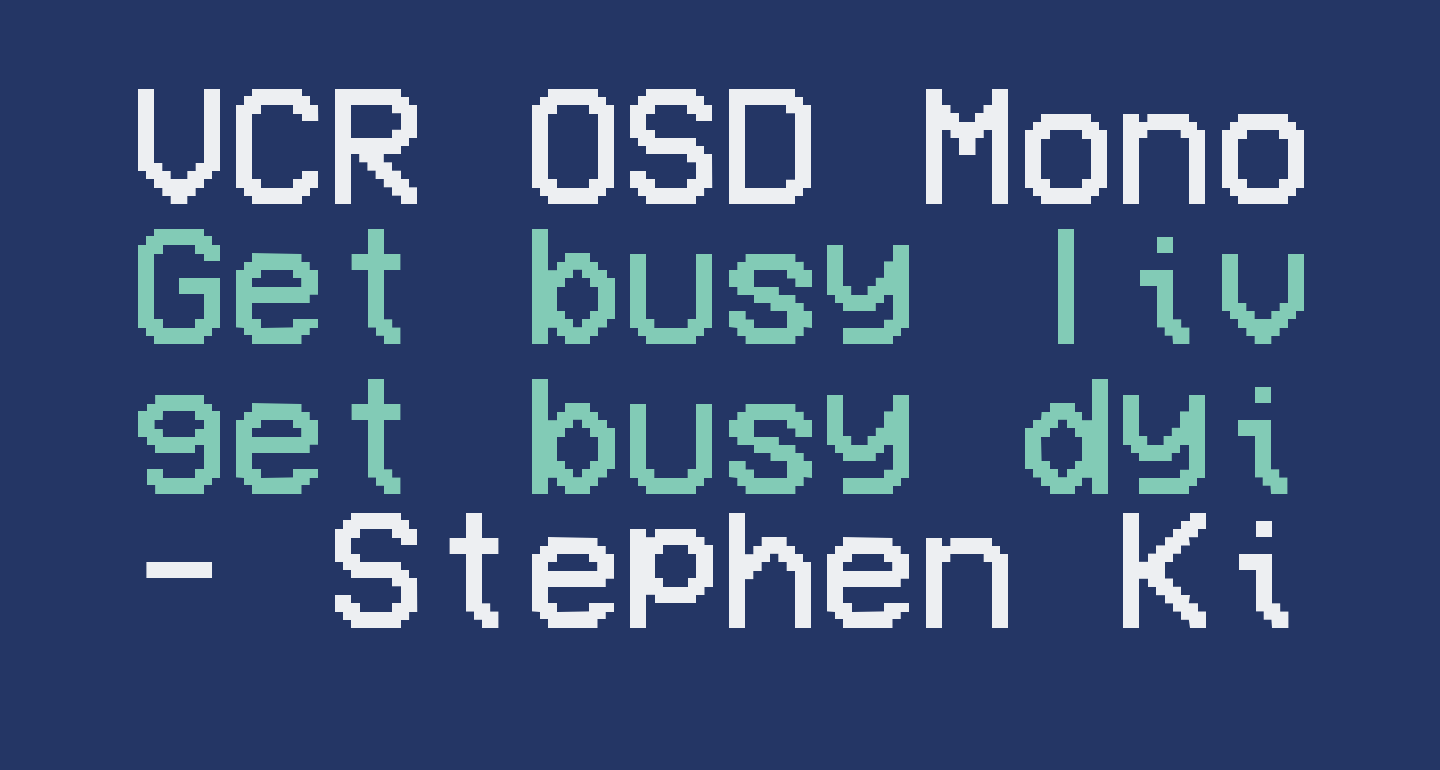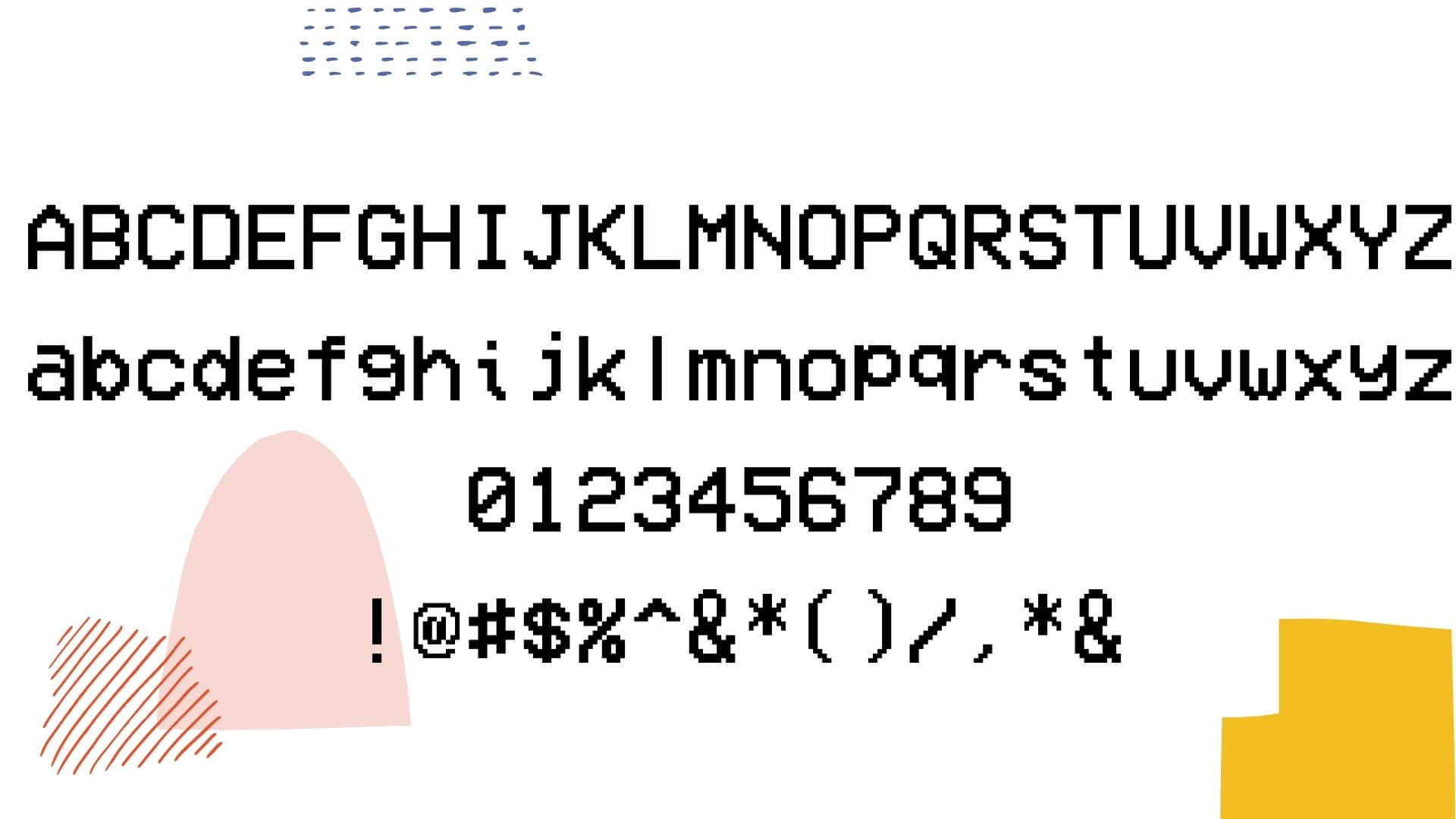
Vcr Osd Mono Font Download Mac . Vcr osd mono is a pixel/bitmap type font that can be used on any device such as pc, mac, linux, ios and. Vcr osd mono à € by riciery leal. Download 10,000 fonts with one click for $19.95. Vcr osd mono font download is available free from fontget. In bitmap (21 px) [help] 3,571,417 downloads (987 yesterday) 32. Vcr osd mono is a display type font that can be used on any device such as pc,. Vcr osd mono download is available free from 8font.com.
Vcr osd mono font download is available free from fontget. Vcr osd mono à € by riciery leal. Vcr osd mono download is available free from 8font.com. Vcr osd mono is a display type font that can be used on any device such as pc,. Download 10,000 fonts with one click for $19.95. In bitmap (21 px) [help] 3,571,417 downloads (987 yesterday) 32. Vcr osd mono is a pixel/bitmap type font that can be used on any device such as pc, mac, linux, ios and.
Vcr Osd Mono Font Download Mac Vcr osd mono is a pixel/bitmap type font that can be used on any device such as pc, mac, linux, ios and. Vcr osd mono à € by riciery leal. In bitmap (21 px) [help] 3,571,417 downloads (987 yesterday) 32. Download 10,000 fonts with one click for $19.95. Vcr osd mono font download is available free from fontget. Vcr osd mono is a pixel/bitmap type font that can be used on any device such as pc, mac, linux, ios and. Vcr osd mono download is available free from 8font.com. Vcr osd mono is a display type font that can be used on any device such as pc,.
Download free VCR OSD Mono Regular font Vcr Osd Mono Font Download Mac Vcr osd mono font download is available free from fontget. In bitmap (21 px) [help] 3,571,417 downloads (987 yesterday) 32. Download 10,000 fonts with one click for $19.95. Vcr osd mono is a pixel/bitmap type font that can be used on any device such as pc, mac, linux, ios and. Vcr osd mono à € by riciery leal. Vcr osd. Vcr Osd Mono Font Download Mac.
VCR OSD Mono Font Free Download Vcr Osd Mono Font Download Mac Vcr osd mono font download is available free from fontget. Vcr osd mono à € by riciery leal. In bitmap (21 px) [help] 3,571,417 downloads (987 yesterday) 32. Vcr osd mono download is available free from 8font.com. Download 10,000 fonts with one click for $19.95. Vcr osd mono is a display type font that can be used on any device. Vcr Osd Mono Font Download Mac.
Vcr Osd Mono Font Free Download Vcr Osd Mono Font Download Mac In bitmap (21 px) [help] 3,571,417 downloads (987 yesterday) 32. Vcr osd mono font download is available free from fontget. Download 10,000 fonts with one click for $19.95. Vcr osd mono is a pixel/bitmap type font that can be used on any device such as pc, mac, linux, ios and. Vcr osd mono is a display type font that can. Vcr Osd Mono Font Download Mac.
VCR OSD Mono Font Vcr Osd Mono Font Download Mac Vcr osd mono is a pixel/bitmap type font that can be used on any device such as pc, mac, linux, ios and. Vcr osd mono is a display type font that can be used on any device such as pc,. In bitmap (21 px) [help] 3,571,417 downloads (987 yesterday) 32. Vcr osd mono font download is available free from fontget.. Vcr Osd Mono Font Download Mac.
VCR OSD Mono free Font What Font Is Vcr Osd Mono Font Download Mac Download 10,000 fonts with one click for $19.95. Vcr osd mono à € by riciery leal. Vcr osd mono is a pixel/bitmap type font that can be used on any device such as pc, mac, linux, ios and. Vcr osd mono download is available free from 8font.com. Vcr osd mono is a display type font that can be used on. Vcr Osd Mono Font Download Mac.
VCR OSD Mono font Vcr Osd Mono Font Download Mac In bitmap (21 px) [help] 3,571,417 downloads (987 yesterday) 32. Vcr osd mono is a display type font that can be used on any device such as pc,. Vcr osd mono download is available free from 8font.com. Download 10,000 fonts with one click for $19.95. Vcr osd mono font download is available free from fontget. Vcr osd mono is a. Vcr Osd Mono Font Download Mac.
VCR OSD Mono Font Free Download Vcr Osd Mono Font Download Mac Vcr osd mono à € by riciery leal. Vcr osd mono download is available free from 8font.com. Download 10,000 fonts with one click for $19.95. Vcr osd mono font download is available free from fontget. Vcr osd mono is a pixel/bitmap type font that can be used on any device such as pc, mac, linux, ios and. In bitmap (21. Vcr Osd Mono Font Download Mac.
VCR OSD Mono Font Vcr Osd Mono Font Download Mac Vcr osd mono font download is available free from fontget. Vcr osd mono download is available free from 8font.com. Download 10,000 fonts with one click for $19.95. In bitmap (21 px) [help] 3,571,417 downloads (987 yesterday) 32. Vcr osd mono is a pixel/bitmap type font that can be used on any device such as pc, mac, linux, ios and. Vcr. Vcr Osd Mono Font Download Mac.
VCR OSD Mono Font A Nostalgic Journey into Digital Typography Vcr Osd Mono Font Download Mac Vcr osd mono download is available free from 8font.com. Download 10,000 fonts with one click for $19.95. Vcr osd mono font download is available free from fontget. Vcr osd mono is a pixel/bitmap type font that can be used on any device such as pc, mac, linux, ios and. Vcr osd mono à € by riciery leal. In bitmap (21. Vcr Osd Mono Font Download Mac.
VCR OSD Mono Font Free Download Vcr Osd Mono Font Download Mac Download 10,000 fonts with one click for $19.95. Vcr osd mono download is available free from 8font.com. Vcr osd mono à € by riciery leal. Vcr osd mono is a pixel/bitmap type font that can be used on any device such as pc, mac, linux, ios and. Vcr osd mono is a display type font that can be used on. Vcr Osd Mono Font Download Mac.